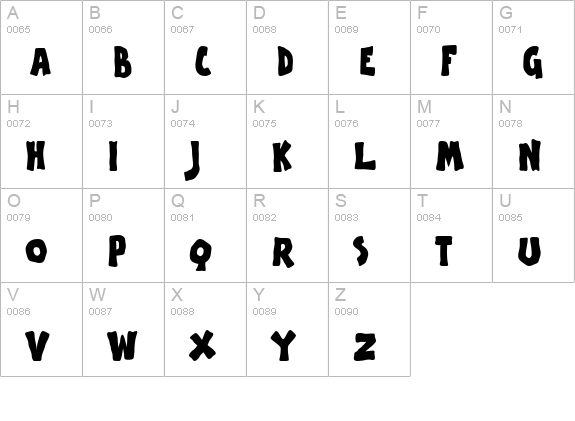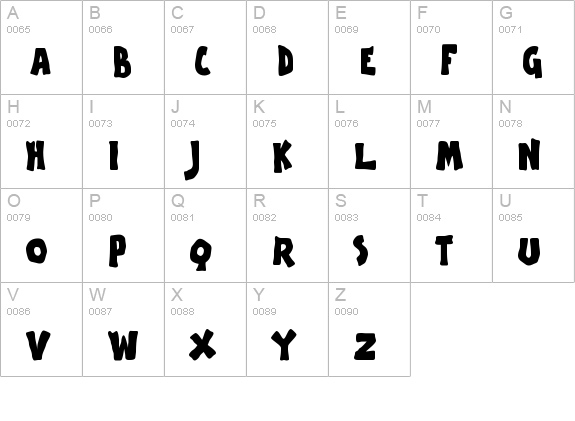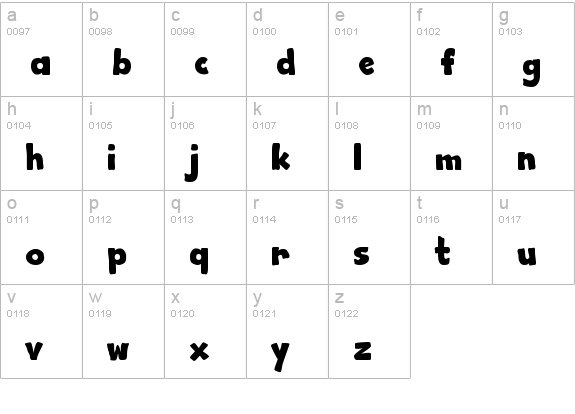
Apple Boy BTN Font Details
Apple Boy BTN is a charming and playful font that exudes a sense of whimsy and creativity. With its rounded edges and youthful appeal, this typeface is perfect for adding a touch of fun to your designs. Whether you're working on a children's book, a poster for a school event, or simply want to inject some cheer into your project, Apple Boy BTN is sure to delight. Best of all, this font is available for free download at FontsMarket.com, making it easily accessible for all your creative endeavors. Add a dash of joy to your designs with Apple Boy BTN today!